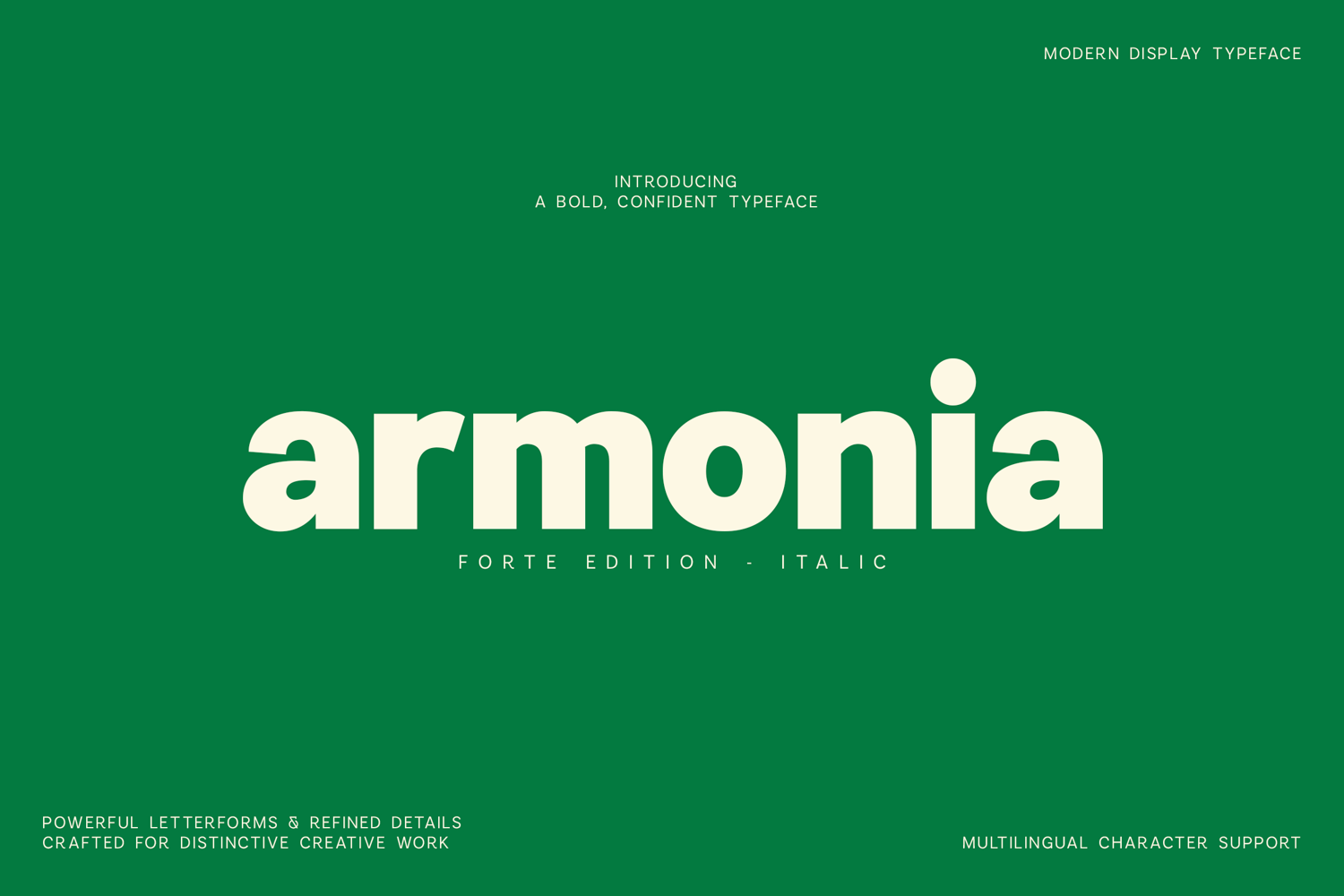
Armonia Forte Bold Italic Display Font
Armonia Forte is a bold italic display font created for confident, energetic, and highly visible typography. Its heavy letterforms, dynamic slant, and distinctive cut details give every word a strong contemporary personality while maintaining excellent clarity.
Designed for impactful headlines and expressive layouts, Armonia Forte works beautifully across branding, advertising, editorial design, posters, packaging, social media, sports graphics, merchandise, and bold promotional campaigns. The combination of powerful proportions and refined details makes it especially effective when your design needs to feel modern, direct, and memorable.
Perfect For- Bold logos and brand identities
- Posters and advertising campaigns
- Editorial headlines and magazine covers
- Packaging and product labels
- Sports and lifestyle graphics
- Social media posts and digital banners
- Album covers and event promotions
- Contemporary merchandise designs
- Bold italic display style
- Uppercase and lowercase letters
- Numbers, punctuation, and symbols
- Extensive multilingual character support
- Strong, highly readable letterforms
- Distinctive contemporary details
- Suitable for both print and digital projects
Bring confidence, movement, and modern visual impact to your creative work with Armonia Forte.